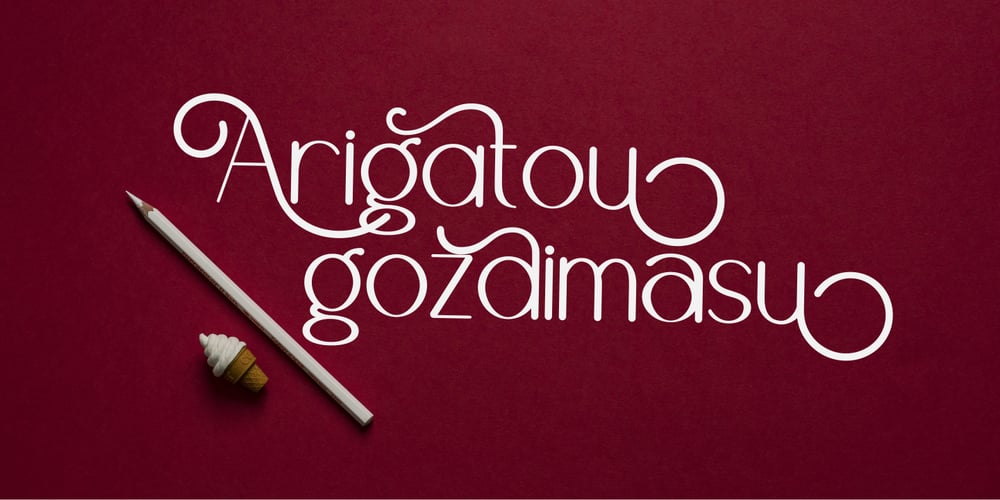
Brighty
Brighty font
Brighty Font Family was designed by Syukur Setiyadi and published by SSI.Scraps. Brighty contains 1 styles and family package options. Brighty is a fun and friendly sans serif font with a beautiful alternates. Fall in love with its timeless elegance. it is suitable for heading and outline. you will love it. Support multilingual. it is consist of Basic Multilingual Plane, Basic Latin, Latin-1 Supplement, Latin Extended-A & B, general punctuation, super and subscripts, currency symbols, letterlike symbols and Alternate characters on PUA. The file includes OTF, plus bonus editable SVG Papercut and template can be downloaded here: https://www.dropbox.com/s/xen5i6h2o3f6oz6/Brighty%20MF.zip?dl=0